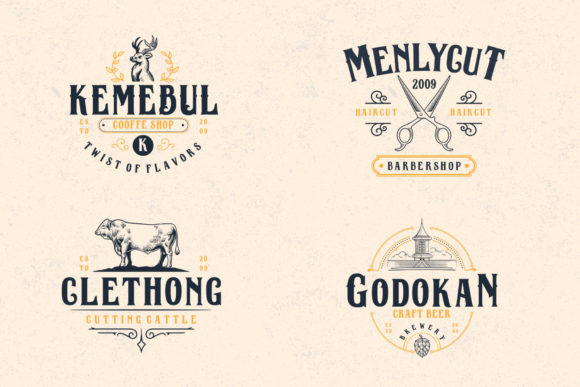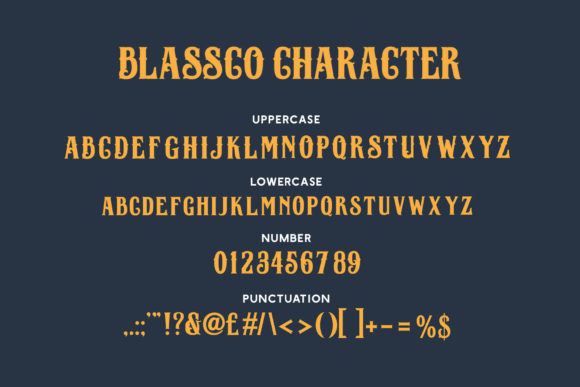
The Blassco Font: A Vintage Powerhouse for Your Designs
I’ll never forget the project that led me to discover the Blassco font. I was working on a branding campaign for a retro-themed cafe, and I was struggling to find the perfect font that captured the essence of the 50s and 60s. The client wanted something bold, confident, and eye-catching, but also nostalgic and authentic. After hours of scouring font libraries and marketplaces, I stumbled upon Blassco – and it was love at first sight! 💕
An Honest Review of Blassco
What I Love About Blassco ✨
• 💥 **Strong and confident**: Blassco exudes a sense of boldness and dynamism, making it perfect for headlines and logotype projects.
• 🔥 **Vintage flair**: The font’s retro vibe adds a touch of nostalgia to any design, transporting your audience back to a bygone era.
• 🎨 **Highly versatile**: Blassco works beautifully in a variety of contexts, from posters and flyers to logos and branding materials.
• 👍 **Easy to read**: Despite its bold and ornate design, Blassco remains surprisingly legible, even at smaller font sizes.
• ⚠️ **Limited use in body text**: While Blassco shines in headlines and titles, it’s not the best choice for longer blocks of text.
• 🤔 **Some glyphs may require manual adjustment**: Depending on the context, certain glyphs or diacritics might need tweaking to ensure optimal spacing and alignment.
The Story Behind Blassco
Blassco was crafted by a talented type designer who drew inspiration from classic signage, posters, and logos from the mid-20th century. With a passion for typography and a keen eye for detail, the designer aimed to create a font that would evoke the spirit of a bygone era while still feeling fresh and modern.
Q: What makes Blassco a good choice for logos and branding?
A: Blassco’s bold, confident design and vintage flair make it an excellent choice for logos and branding materials that need to stand out and evoke a sense of nostalgia.
Q: Can I use Blassco for body text or longer blocks of content?
A: While Blassco is an amazing font, it’s not the best choice for body text or longer blocks of content. Its bold design and ornate details can make it harder to read in larger quantities.
Q: Does Blassco come with any special features or glyphs?
A: Yes! Blassco includes a range of OpenType features, glyphs, and stylistic alternates that allow you to customize your text and add a unique touch to your designs.
Q: Is Blassco suitable for digital use, or is it better suited for print?
A: Blassco is a versatile font that can be used in both digital and print contexts. Its bold design and clear letterforms make it easy to read on screens, while its vintage flair adds a touch of character to any design.